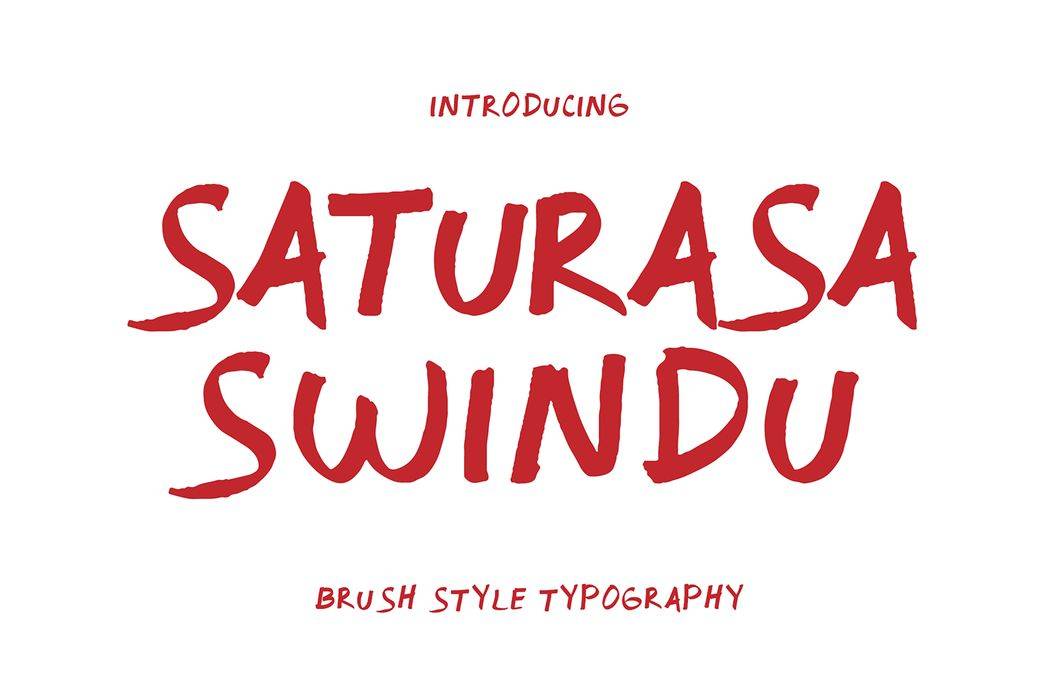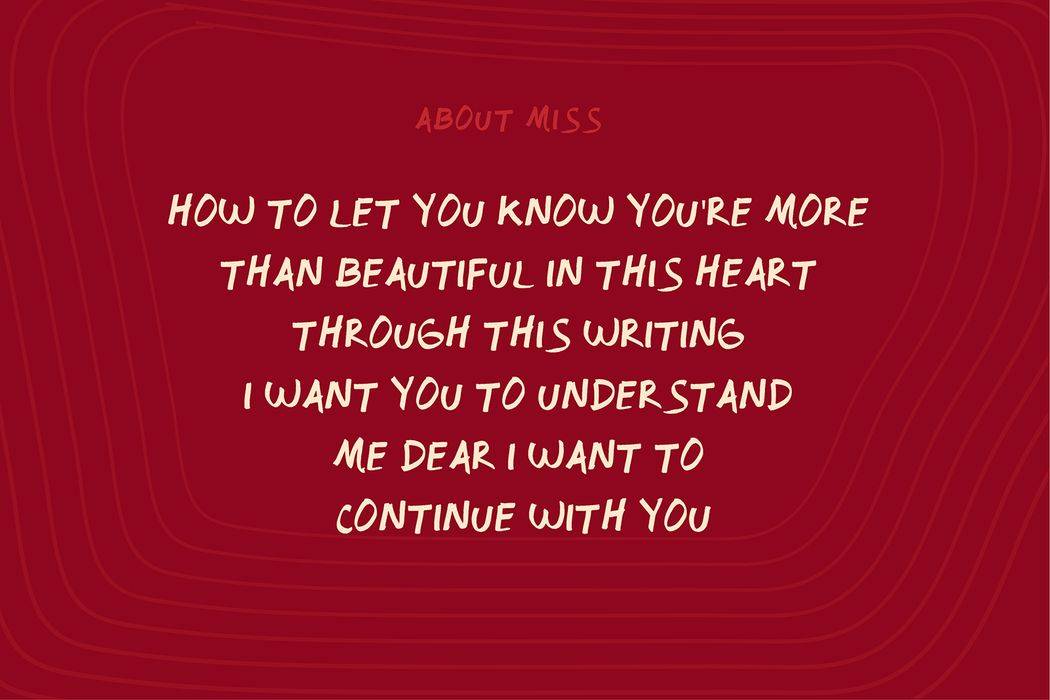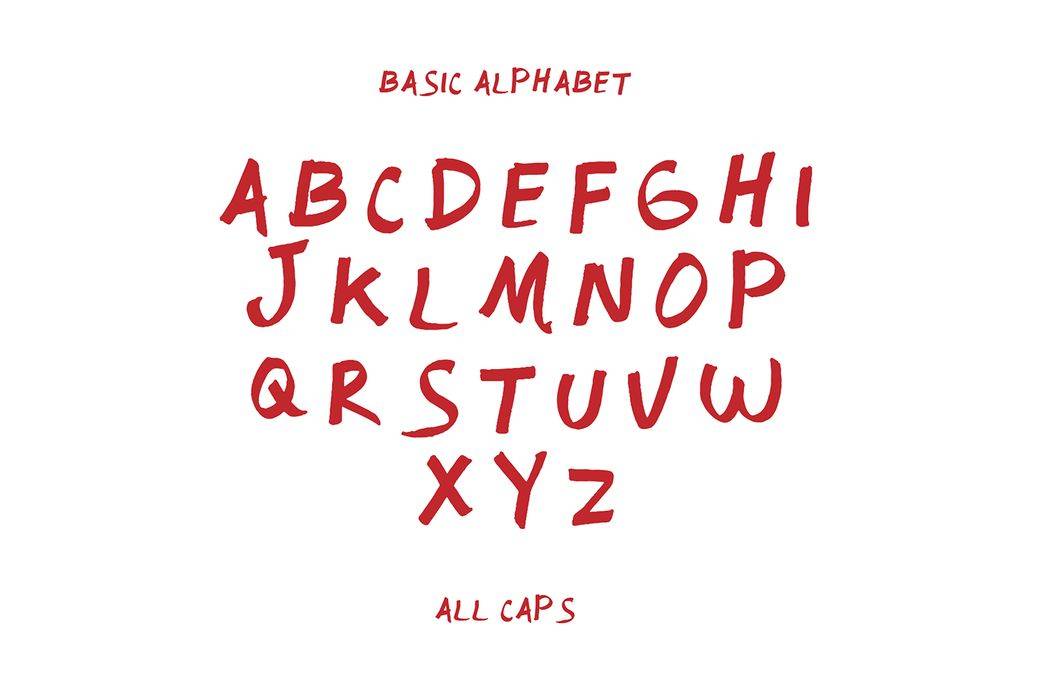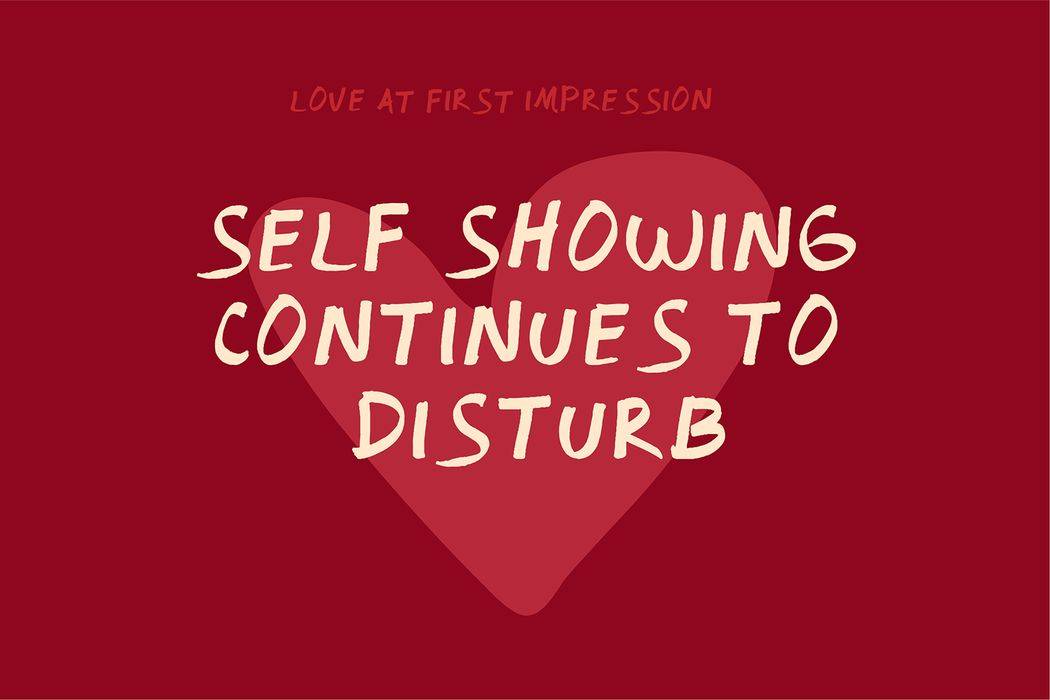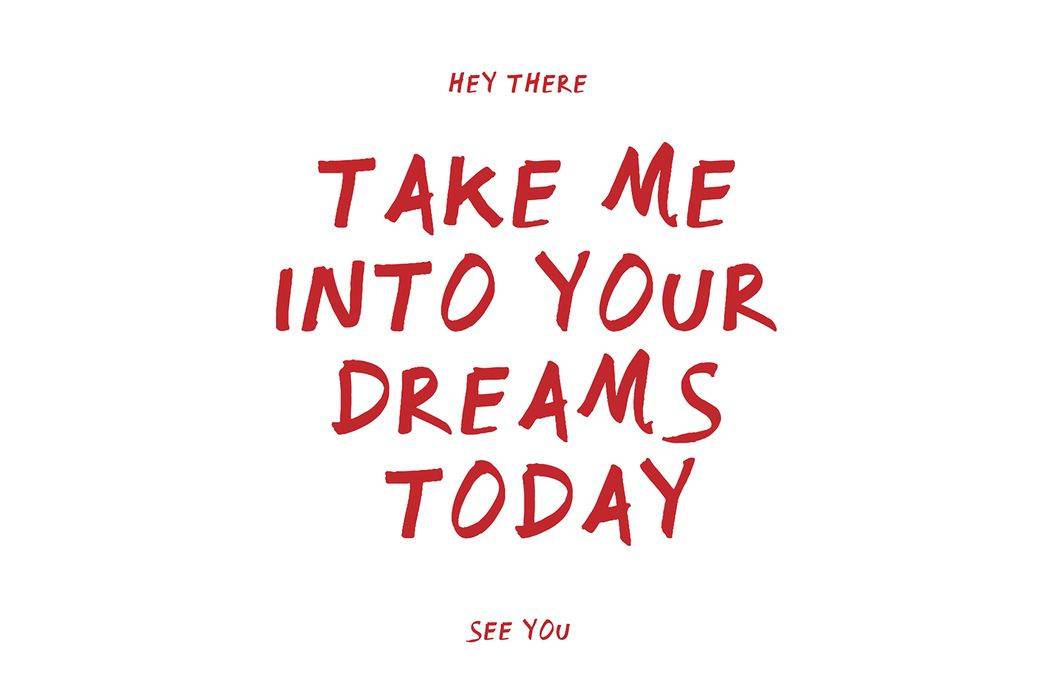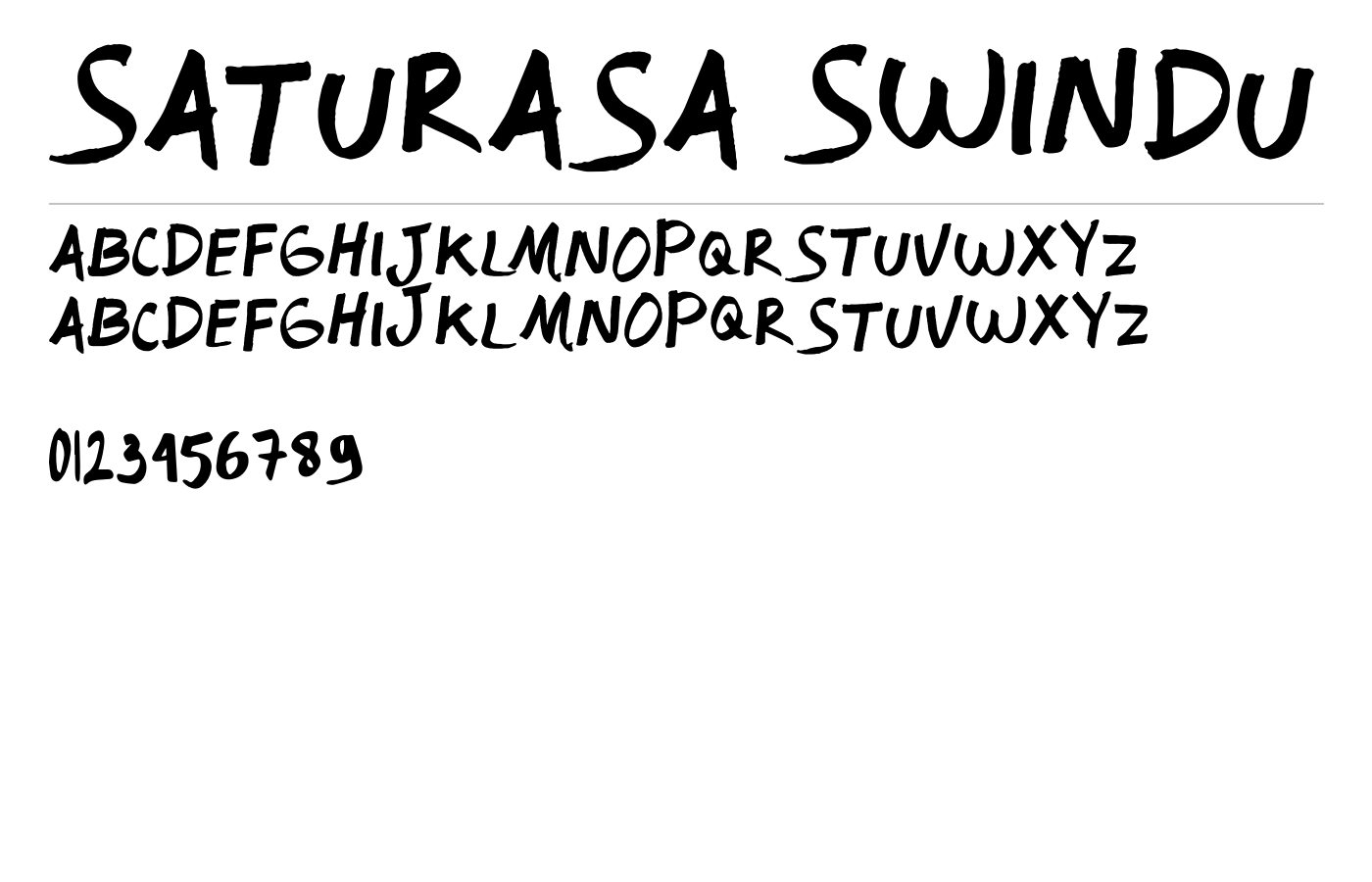
Saturasa Swindu is a bold, hand-drawn sans serif font that exudes a playful and casual vibe with its irregular, brush-like strokes and lively letterforms. Its energetic style makes it perfect for creative projects, informal branding, posters, and headlines where a friendly, approachable feel is desired. This font stands out best in expressive, eye-catching designs that benefit from a unique, handcrafted touch.
Saturasa Swindu Font
About Saturasa Swindu Font
| Font family | Saturasa Swindu Font |
| Designer | Abdul Artega |